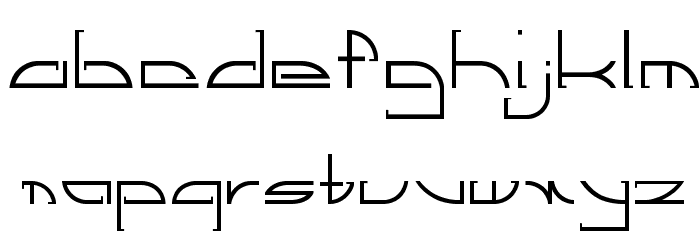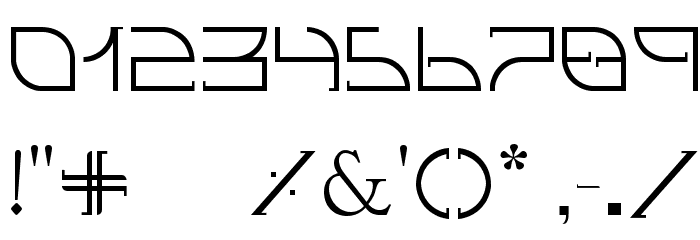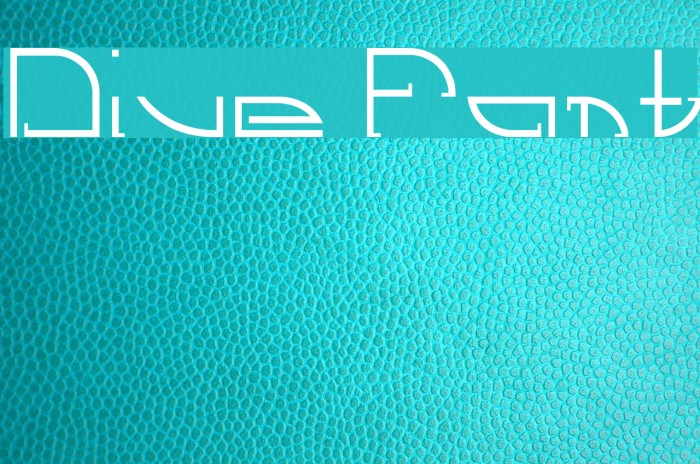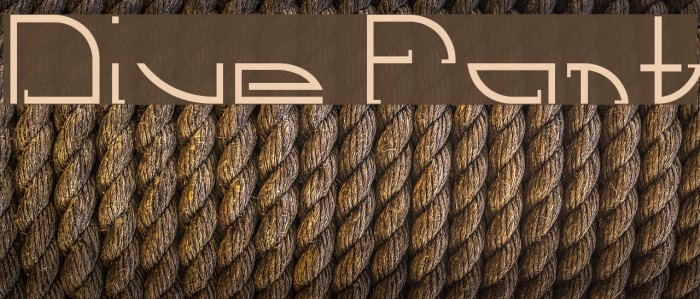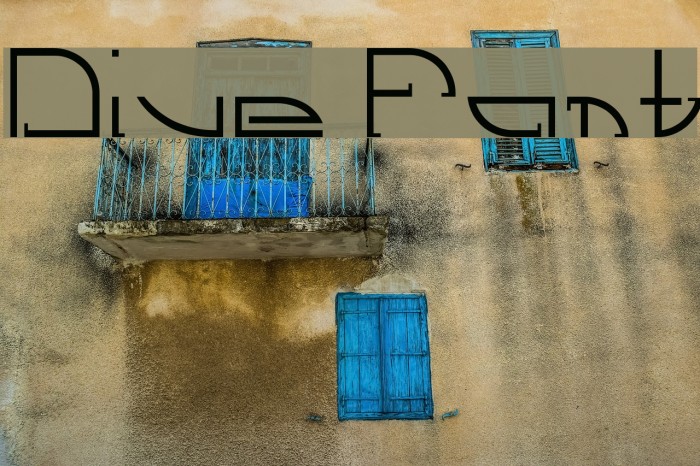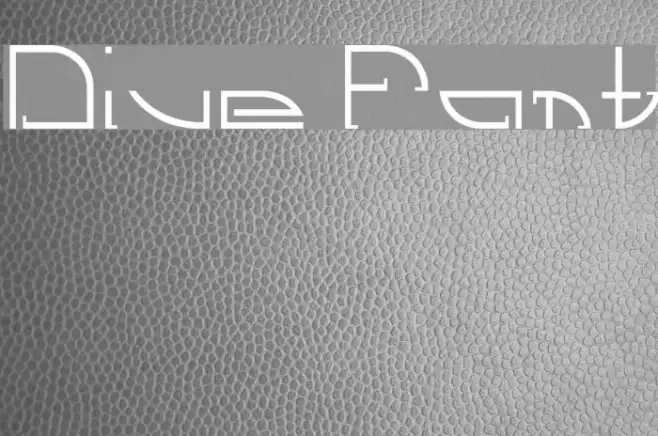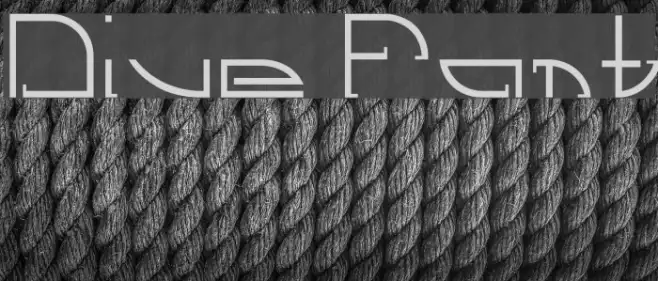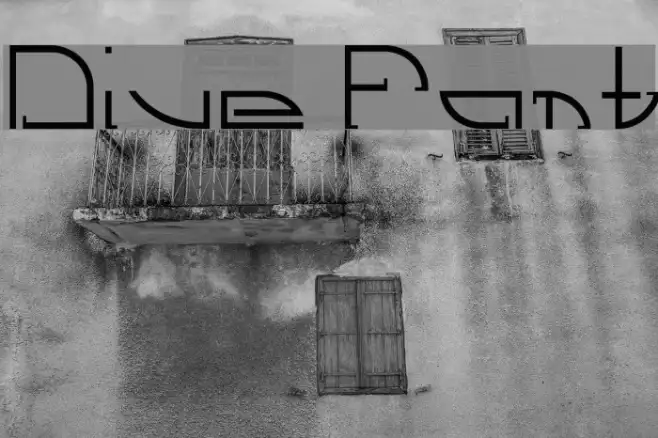
Dive Font
This font features a futuristic and geometric design, characterized by its unique blend of angular and rounded elements. The uppercase letters exhibit a distinct architectural style, with sharp edges and clean lines that create a sense of precision and modernity. The lowercase letters maintain this geometric theme, offering a cohesive look across the alphabet. The numerals are equally stylized, with a consistent use of angular forms that align with the overall aesthetic. Special characters are designed with the same attention to detail, ensuring they complement the letterforms seamlessly. This font's innovative design makes it stand out, offering a bold and striking appearance suitable for various creative applications.
A futuristic, geometric font with angular and rounded elements.